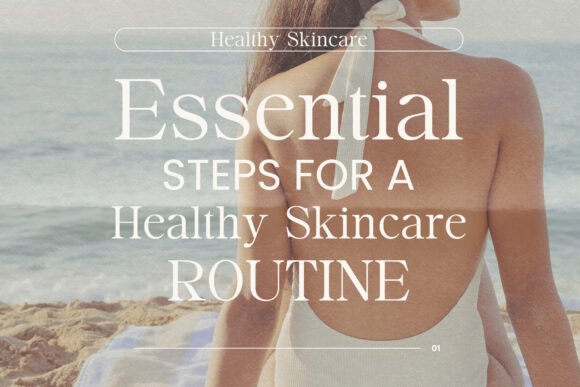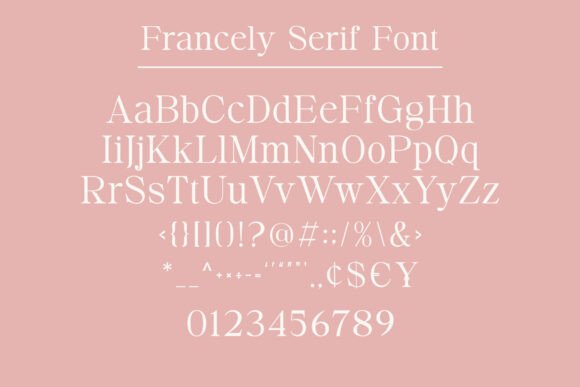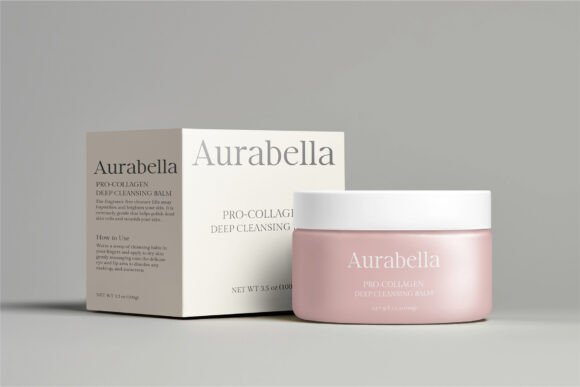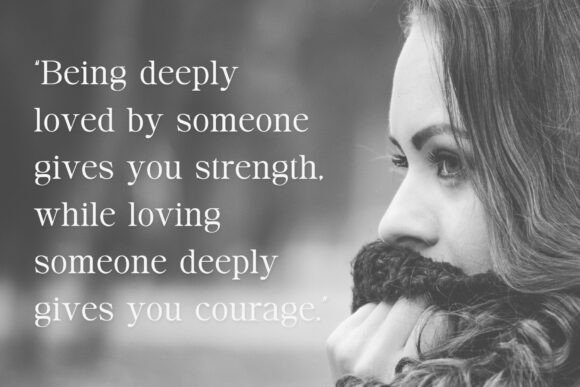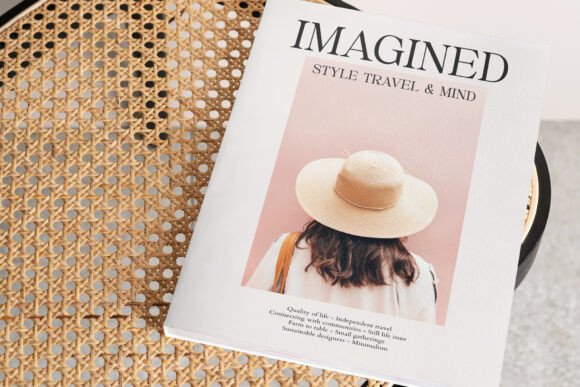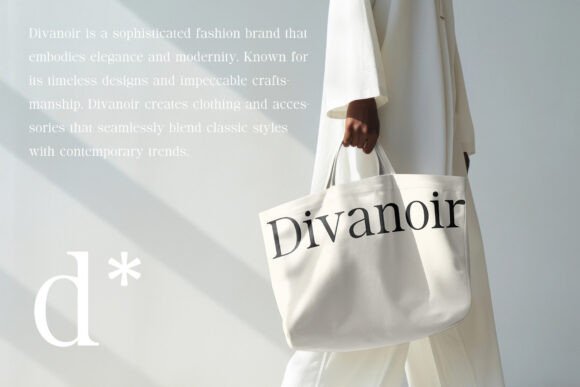
Introduction to Francely Font
Have you ever found yourself scrolling through social media, mesmerized by a beautiful logo or advertisement, wondering what makes it so striking? For designers, this is often the result of a well-crafted typography choice, and for those in the know, the Francely Font is about to become your go-to design resource.
| 📌 Product Name | Francely Font |
| 👤 Author | Almeera Studio |
As a serif font, Francely exudes elegance and sophistication, making it the perfect choice for a wide range of creative projects, from branding and logos to social media posts and advertisements. With its simple yet stylish design, this font is sure to elevate any project you undertake.
Key Features of Francely Font
- High-quality design resource perfect for creative projects
- Includes 2 font styles with various weights and sizes
- Unique characteristics: elegant and modern design with a touch of sophistication
- Perfect for use in graphic design, typography, and digital art projects
Honest Review: Francely Font
As a designer, I’m always on the lookout for high-quality design resources to elevate my creative projects. Recently, I had the chance to try out the Francely Font and here’s my honest review.
What works well: ✨ The Francely Font has a beautiful, elegant design that’s perfect for a variety of creative projects. The font is highly versatile and can be used for both digital and print media. I also appreciate the fact that it’s a free download, making it accessible to designers of all levels.
Some of the key features of the Francely Font include:
- High-quality design with a transparent background
- Perfect for use in digital and print media
- Beautiful, elegant design that’s perfect for a variety of creative projects
⚠️ However, I did notice that the font is only available in a limited number of file formats, which may be a limitation for some designers. Additionally, the font may not be suitable for use in very small sizes or in situations where a high level of precision is required.
Overall, I’m impressed with the Francely Font and would recommend it to designers who are looking for a high-quality, versatile font for their creative projects.
The Francely Font is ideal for creating invitations, greeting cards, and other creative projects that require a touch of elegance. It’s also great for use in branding and marketing materials, such as logos and brochures.
Tips for Getting the Most Out of Francely Font
To get the most out of the Francely Font, experiment with different font sizes and styles to find the perfect combination for your project. You can also pair the font with other design elements, such as images and graphics, to create a visually appealing design.
Open Sans Font is a modern sans-serif typeface designed by Steve Matteson. It’s a popular design resource that’s perfect for creative projects that require a clean and professional design aesthetic. Open Sans Font is available for free download and features a transparent background, making it ideal for overlaying on images or videos. Compared to Francely Font, Open Sans is more readable and suitable for designs that require a clear and concise message.
For optimal results, it’s recommended to use a high-resolution setting of at least 300 DPI when printing with the Francely Font. This will ensure that the font appears crisp and clear, even on large-scale prints.
Q: Does the Francely Font come with a transparent background?
Yes, the Francely Font is provided with a transparent background, making it easy to use on a variety of design elements, including logos, icons, and graphics. This feature also allows for seamless integration with other design resources.